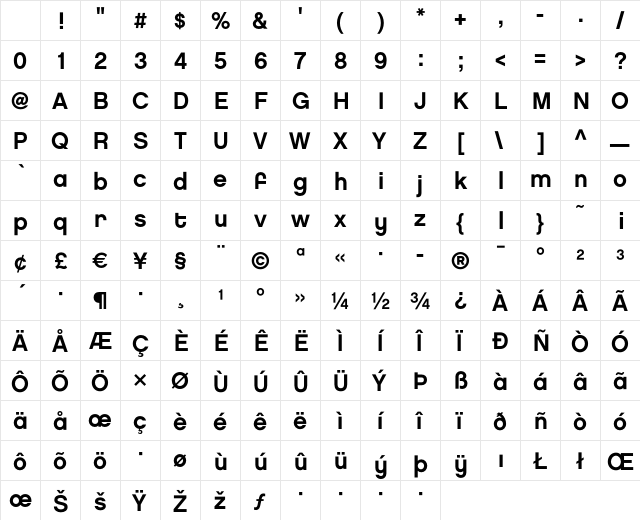
Chalet NewYorkNineteenEighty
Style: NewYorkNineteenEighty
Designer: Ken Barber
Complete Chalet NewYorkNineteenEighty glyph index. Displaying only characters natively supported by Chalet NewYorkNineteenEighty font.
Design Context for Chalet
Chalet is a composed and adaptable typeface that performs quietly and consistently across a wide range of design contexts.